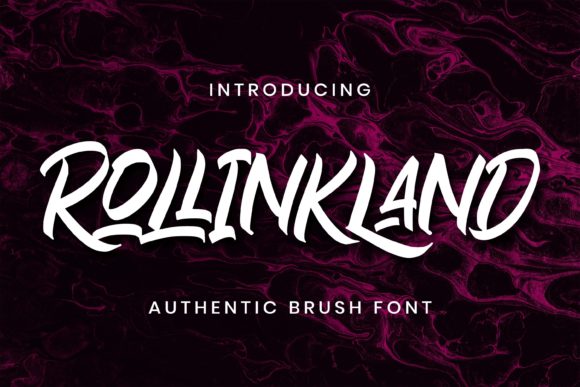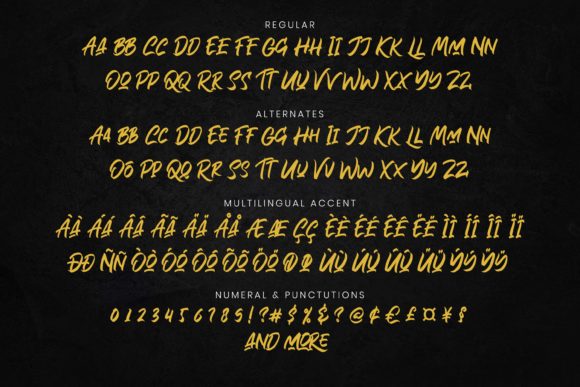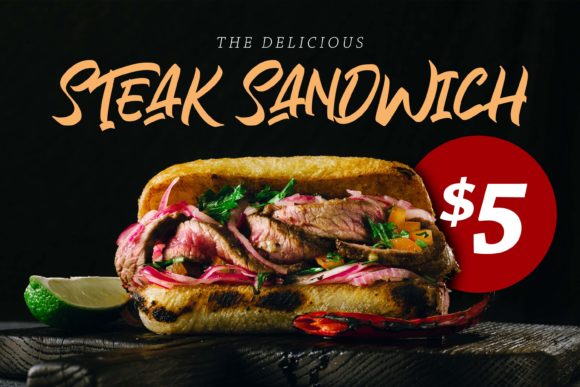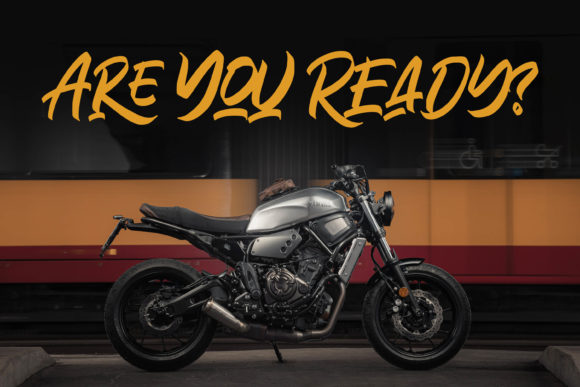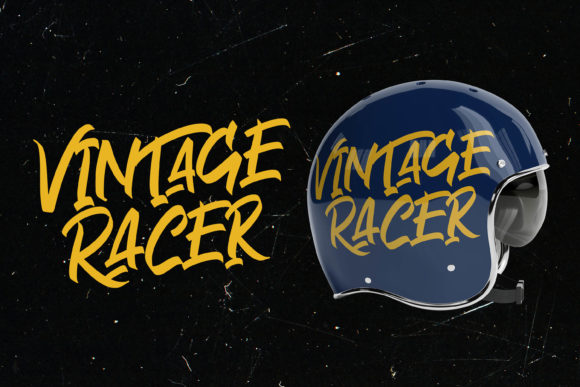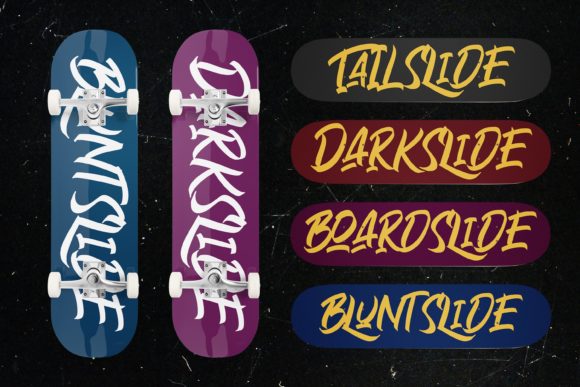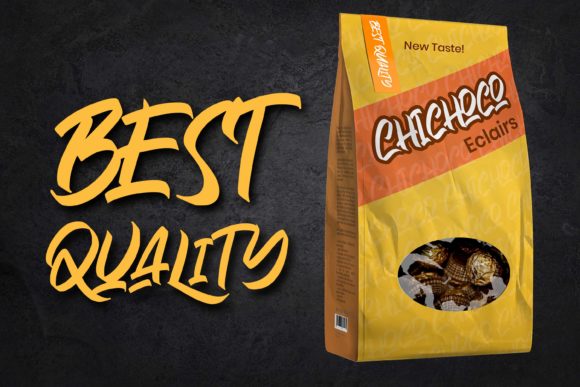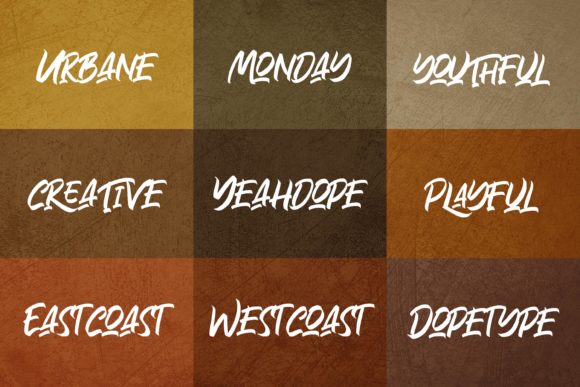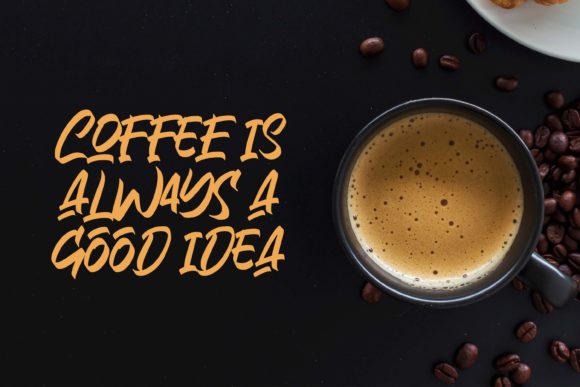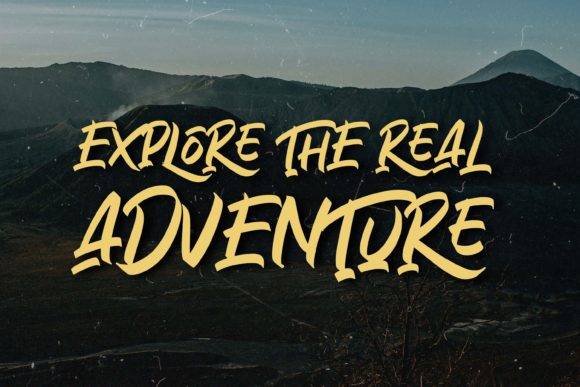
Rollinkland Font
Rollinkland is an authentic brush font with a clear style. Use this wonderful and unique handwritten font to bring any DIY project to life!